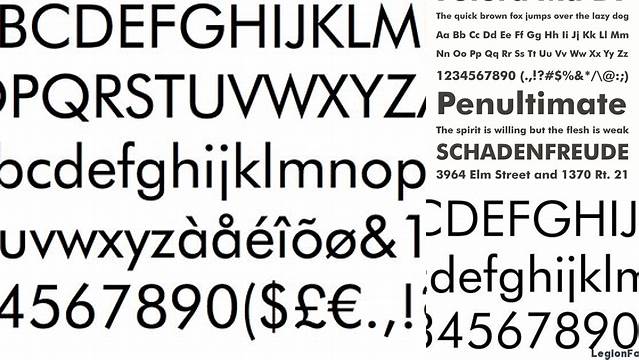
Are you looking to enhance your design projects with a clean, modern, and highly readable font? Look no further! In this article, we will dive deep into the Futura BT Book font family, exploring its history, characteristics, and, most importantly, how you can obtain it for free. Whether you're a seasoned designer or just starting, understanding and utilizing the right typography can make a significant difference in the overall impact of your work. So, let's get started and unlock the potential of Futura BT Book!
What is Futura BT Book?
Futura BT Book is a geometric sans-serif typeface that has stood the test of time, remaining a popular choice for designers across various disciplines. Created by Paul Renner in 1927, Futura was designed as a contribution to the New Frankfurt project. It embodies the principles of the Bauhaus movement, emphasizing functionality and simplicity. The font is characterized by its clean lines, precise geometric shapes, and even strokes, giving it a modern and sophisticated appearance. Its design is rooted in basic geometric forms: circles, triangles, and squares. This foundational approach results in a typeface that is both aesthetically pleasing and highly legible.
Futura BT Book is a specific weight within the larger Futura family, offering a lighter and more delicate appearance compared to its bolder counterparts. This makes it particularly suitable for body text, captions, and other instances where readability is paramount. Its open forms and balanced proportions ensure that the text remains clear and comfortable to read, even at smaller sizes. The Futura family includes a variety of weights and styles, such as Futura Light, Futura Medium, Futura Bold, and Futura Condensed, providing designers with a versatile toolkit for creating visually cohesive designs. Futura's influence can be seen in numerous contemporary typefaces, highlighting its enduring appeal and impact on the field of typography. Its legacy is firmly cemented as one of the most important and widely used fonts in the history of graphic design.
The appeal of Futura BT Book lies in its versatility. It works well in both print and digital media, making it a go-to choice for a wide range of applications. From corporate branding and editorial design to web design and mobile apps, Futura BT Book adds a touch of elegance and clarity. It conveys a sense of modernity and sophistication, making it ideal for projects that require a clean and professional look. The font's geometric precision also lends itself well to technical and scientific contexts, where accuracy and clarity are essential. Its timeless quality ensures that it remains relevant and effective, regardless of evolving design trends. Futura BT Book is not just a typeface; it's a design asset that enhances communication and elevates visual presentation.
Key Characteristics of Futura BT Book
To truly appreciate Futura BT Book, it's essential to understand its defining characteristics:
- Geometric Design: As mentioned earlier, Futura is based on simple geometric shapes, giving it a distinctive and modern look.
- Clean Lines: The font features crisp, clean lines that contribute to its legibility and visual appeal.
- Even Strokes: The consistent stroke weight throughout the typeface ensures a balanced and harmonious appearance.
- Open Forms: The open counters (the enclosed spaces within letters) enhance readability, especially in smaller sizes.
- Classic Appeal: Despite being designed nearly a century ago, Futura remains timeless and relevant in contemporary design.